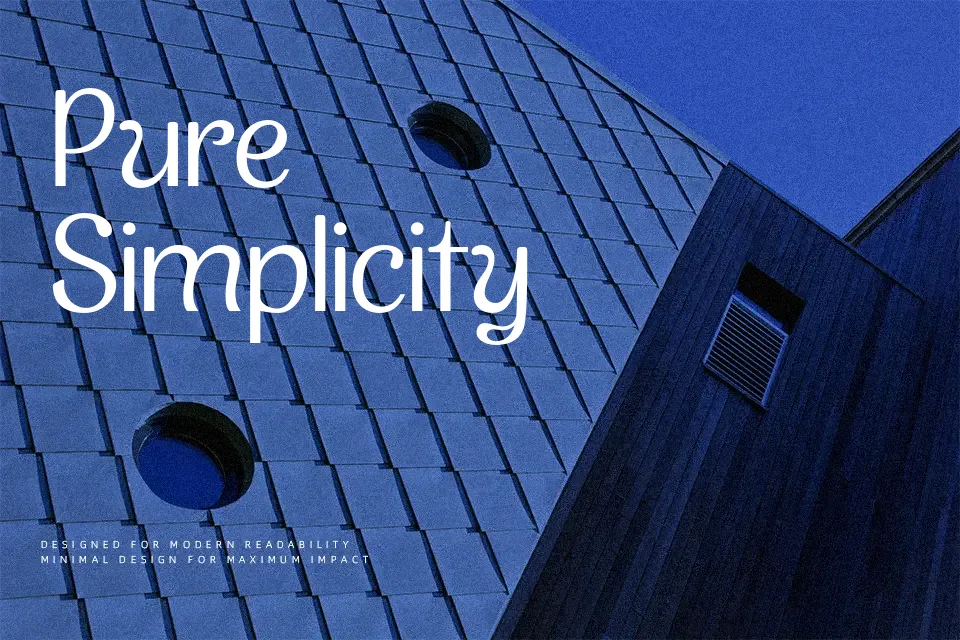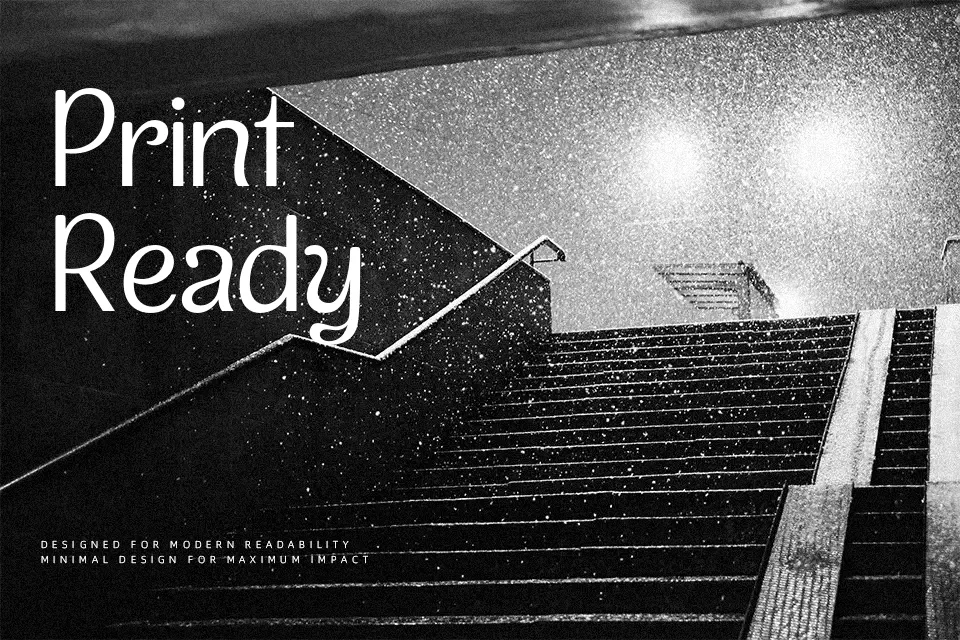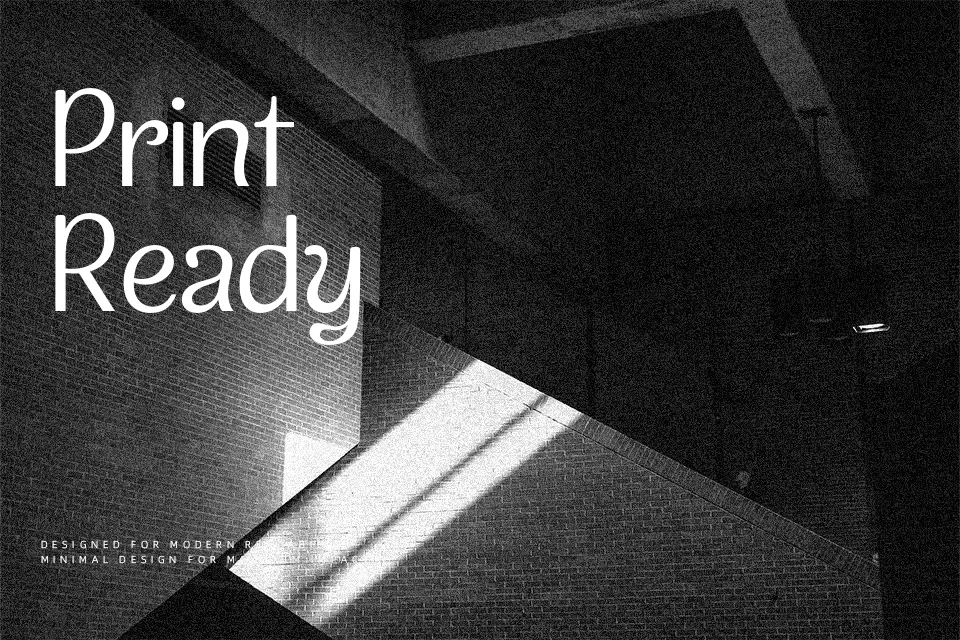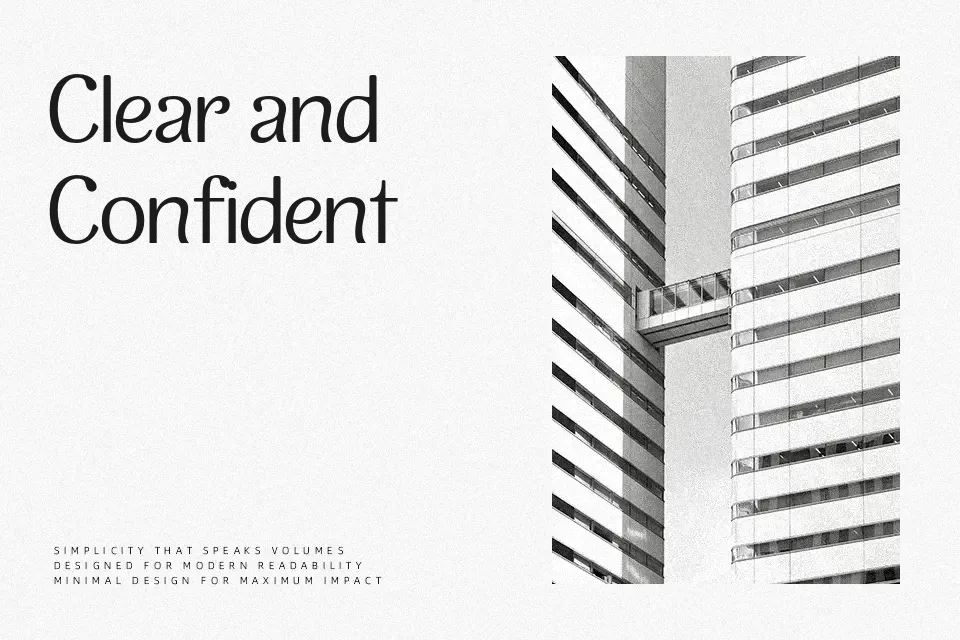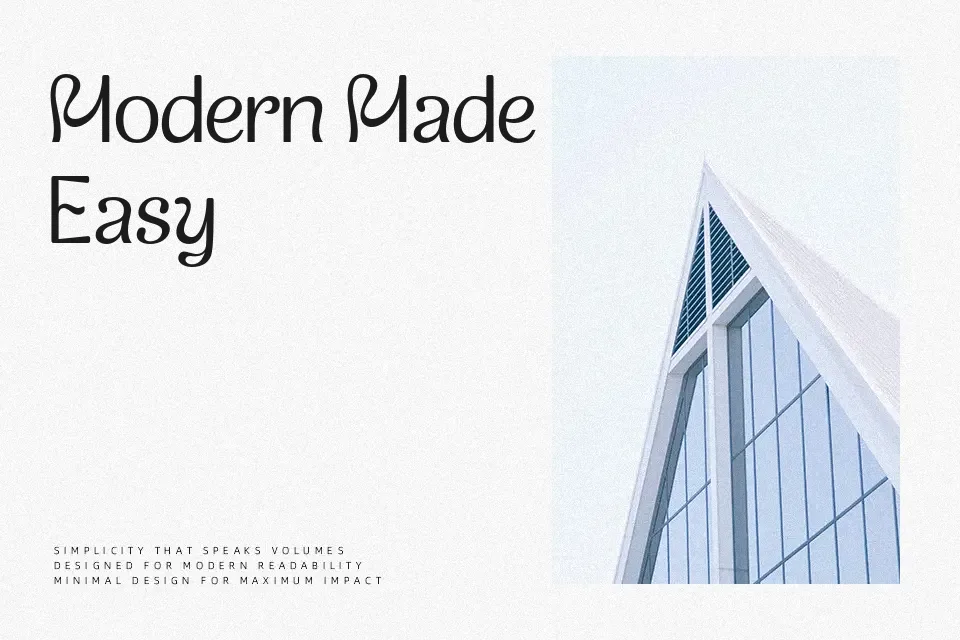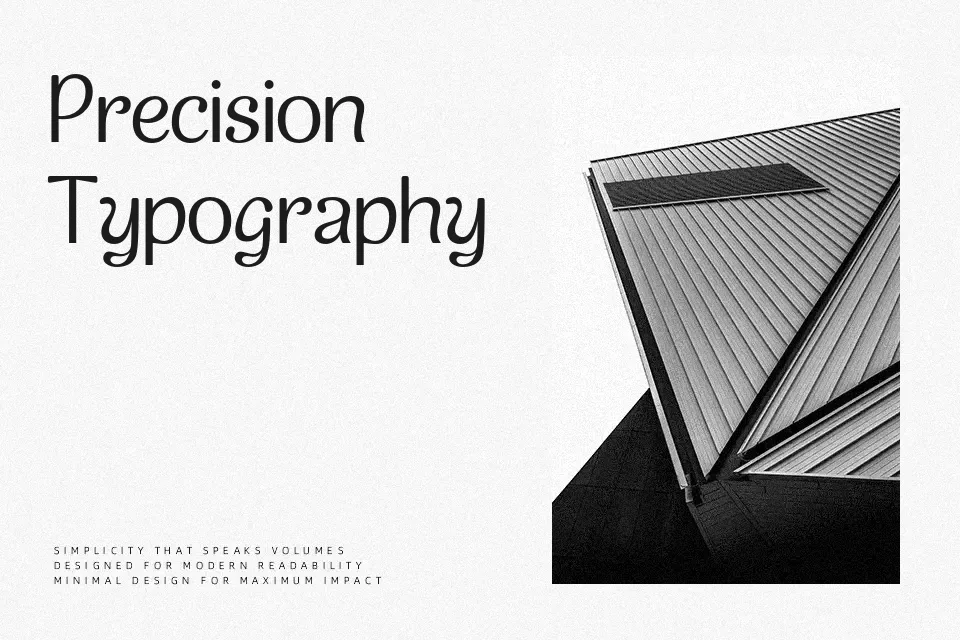
Bliss Mood Font
Designed by Ef Studio
Bliss Mood is an experimental display sans-serif that captures attention through a striking fusion of fluid curves and rigid geometry. Its letterforms feature unconventional stroke contrasts and abstract structures, creating a highly contemporary, artistic impression. As a stylized typeface, it thrives in large, high-impact environments. This makes it a brilliant asset for avant-garde fashion editorials, modern art posters, or bold brand identities demanding a progressive aesthetic. However, its highly stylized nature severely compromises legibility at smaller scales, meaning it should never be applied to dense body copy, mobile interfaces, or formal corporate reports. Compared to traditional geometric sans designs, Bliss Mood leans aggressively into decorative territory, requiring ample negative space to maximize its visual presence.
Avant-garde fashion branding and editorial layouts
Striking contemporary art posters
Bold headline typography requiring a progressive look
Dense body copy and continuous reading formats
Formal corporate documents and financial reports
Small-scale mobile application interfaces
Perfect for branding, fashion, and headline, with a artistic and decorative style.